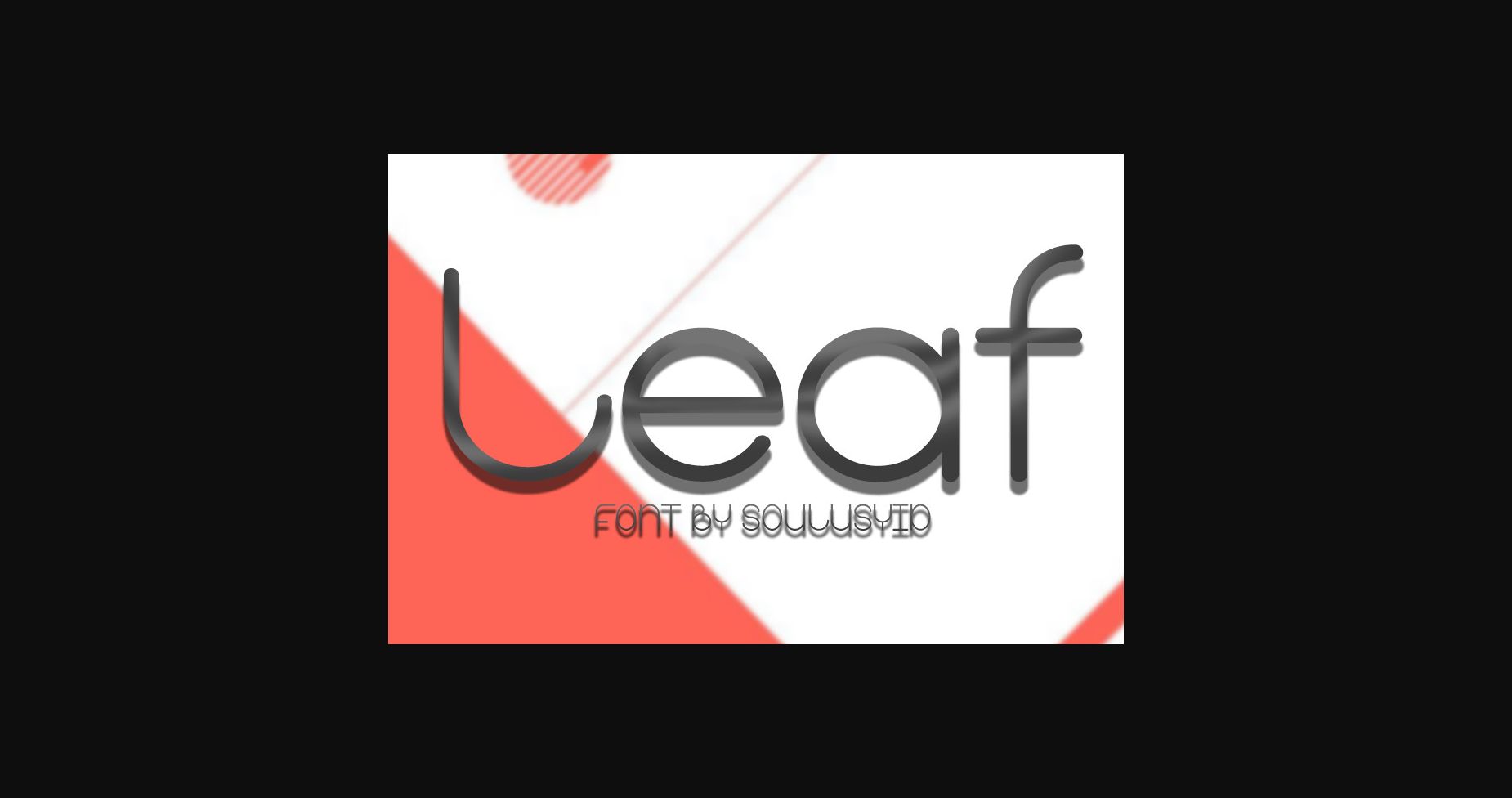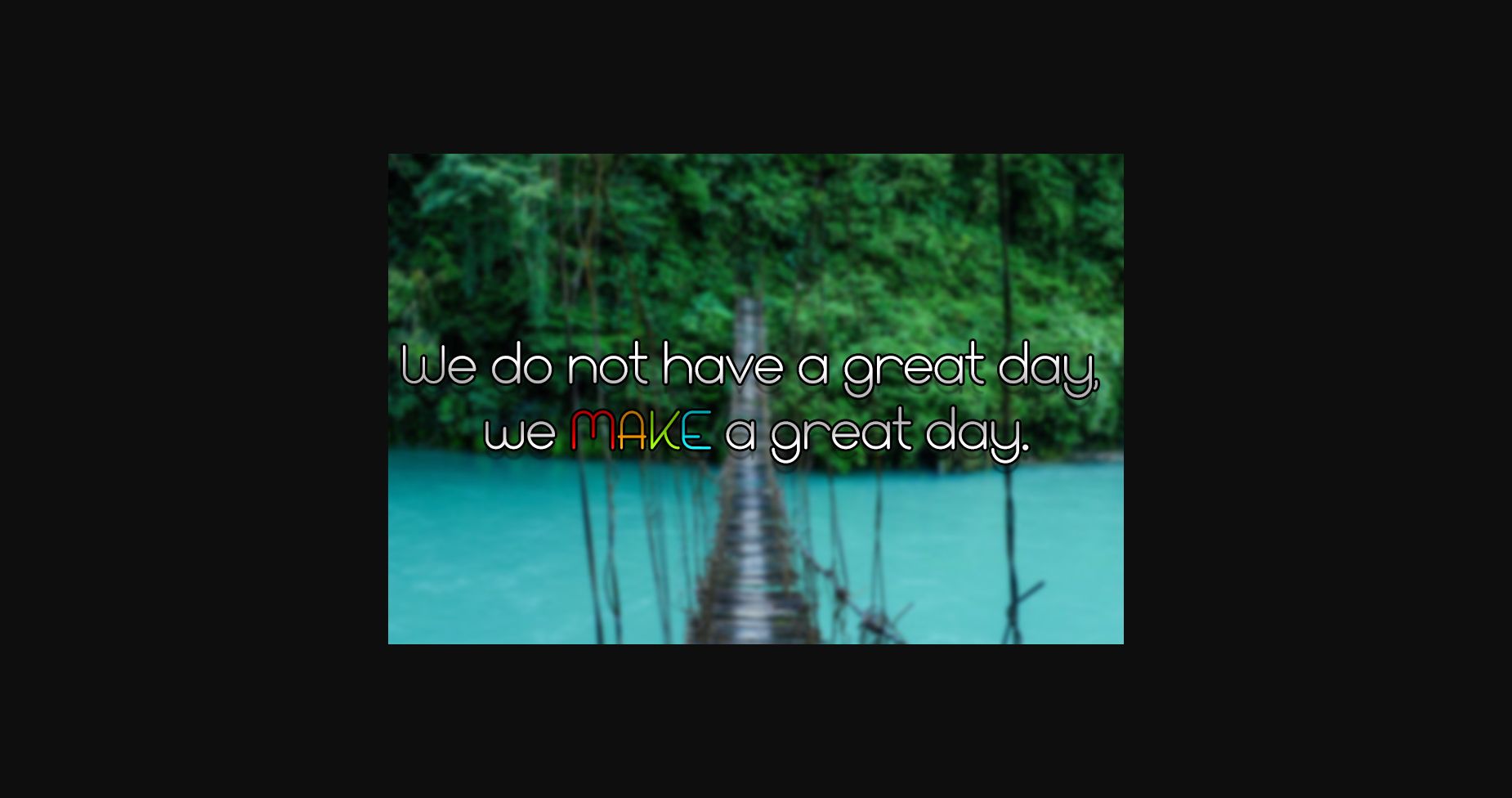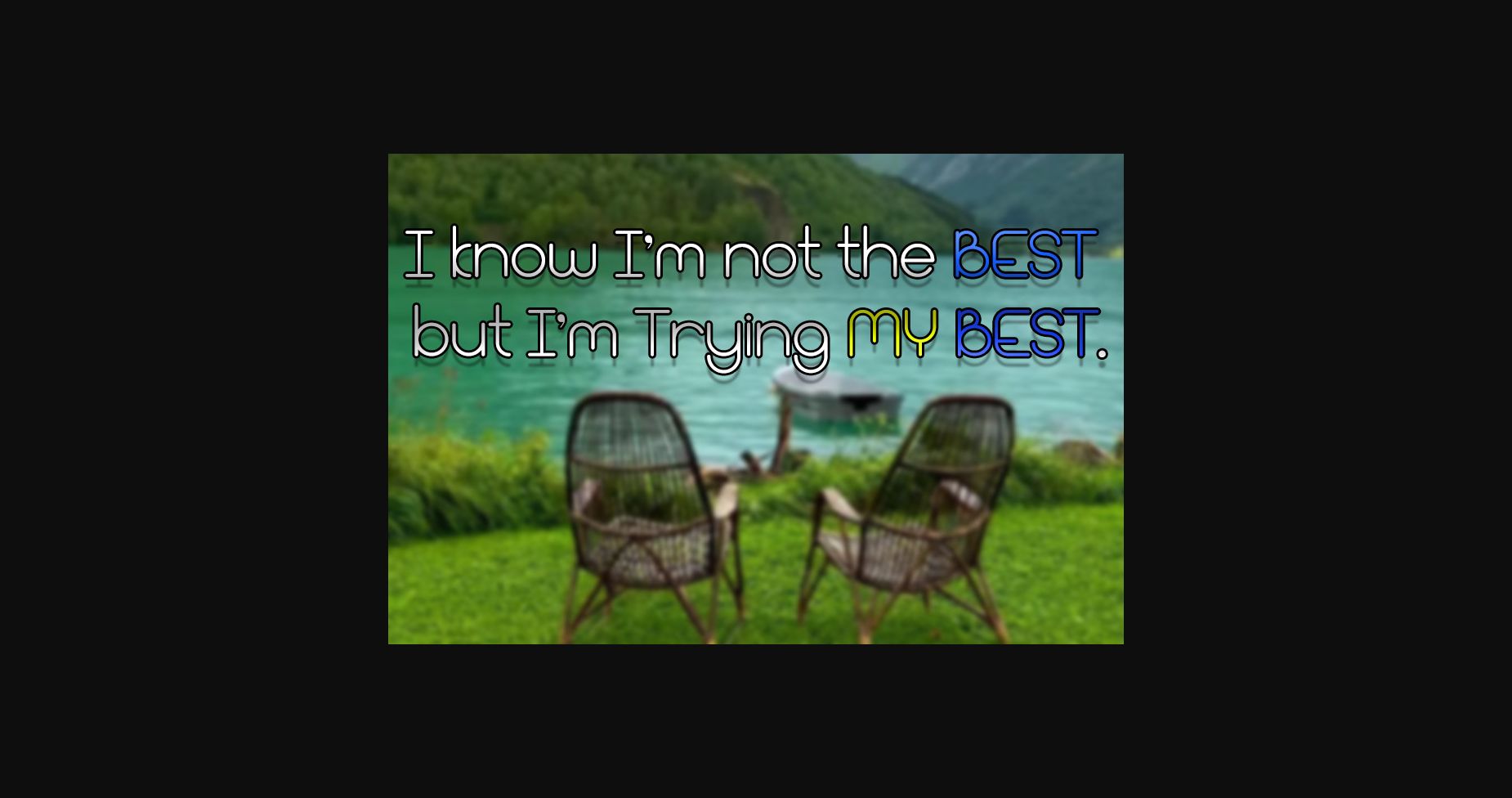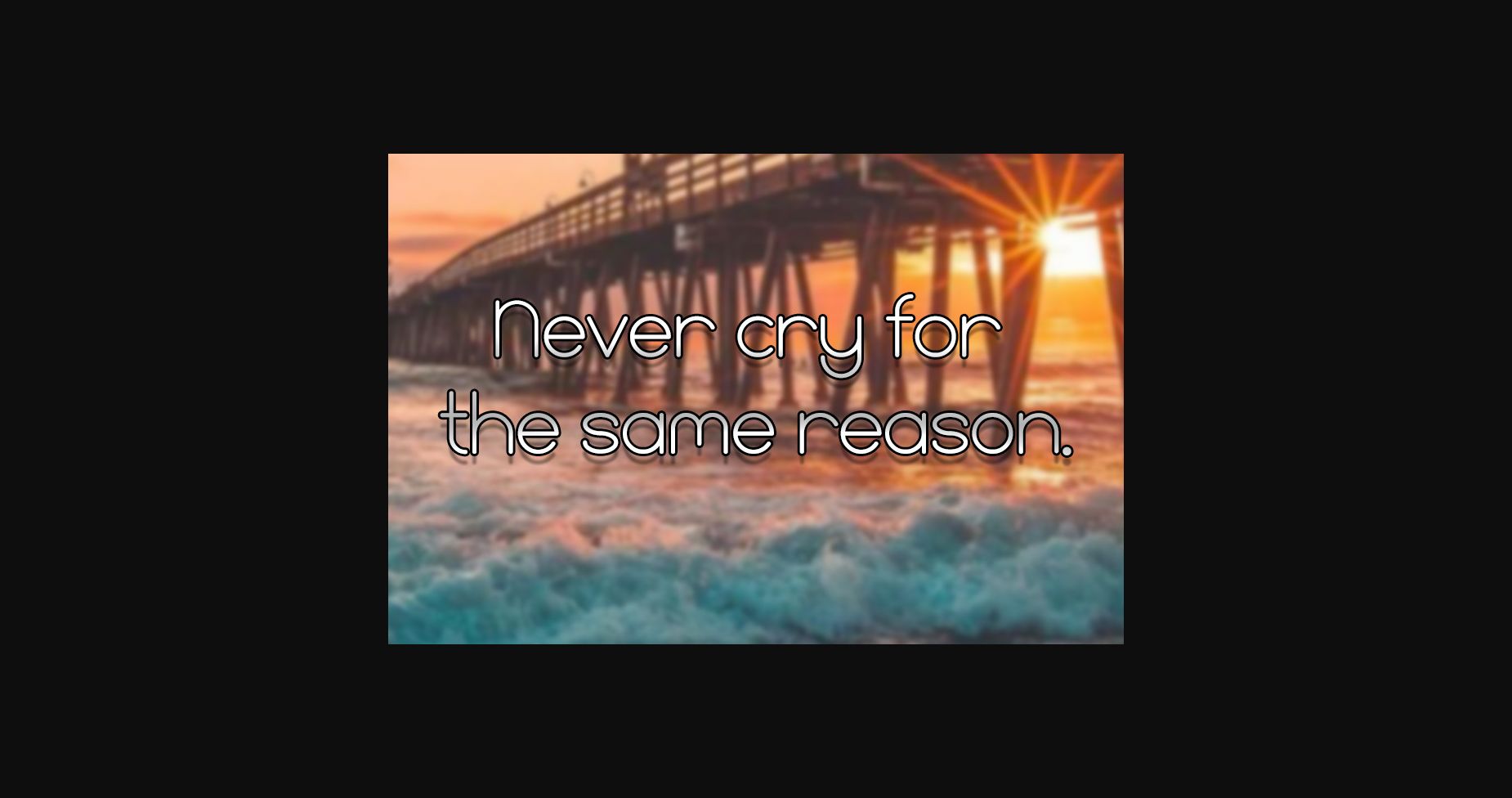
HomeSans Serif FontsLeaf Font Sans Serif Fonts Leaf Font FacebookXPinterestWhatsApp 1 of 6 ... Leaf Font Poster 2... Leaf Font Poster 3... Leaf Font Poster 4... Leaf Font Poster 5... Leaf Font Poster 6... About Leaf Font Leaf is a clean sans-serif font with three variants and a minimal vibe. It can easily be matched to an incredibly large set of projects, so add it to your creative ideas and notice how it makes them stand out! DOWNLOAD NOW People also explored Floraland Font Mitha Mella Font Magician Font Pineapple Palm Tree Font Frame Mockup – Valentines Day Theme SK Curiosity Font Charming Font Natasha Crimosly Font Marlowe Font 282 0 TagsLeafLeaf Font Previous articleKoliluk FontNext articleIsabella Font LEAVE A REPLY Cancel reply Comment: Please enter your comment! Name:* Please enter your name here Email:* You have entered an incorrect email address! Please enter your email address here Website: Save my name, email, and website in this browser for the next time I comment. Personal Use Free Peachy Rose Personal Use Free Read more about this font Gonestones Personal Use Free Read more about this font Multicolore Personal Use Free Read more about this font Harshita Personal Use Free Read more about this font BLOG Fonts That Capture the Spirit of New York City New York City is more than just a place—it’s an experience, a rhythm, a visual language... Top 10 Handwritten Fonts That Elevate Your Designs Free vs Paid Fonts: Why Investing in Premium Fonts Is Worth It How to Install and Use Fonts on Windows, macOS, and Web Projects